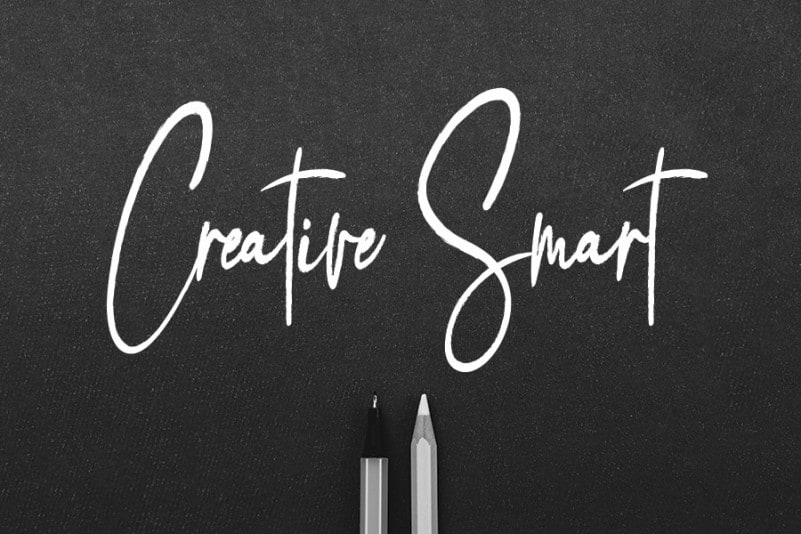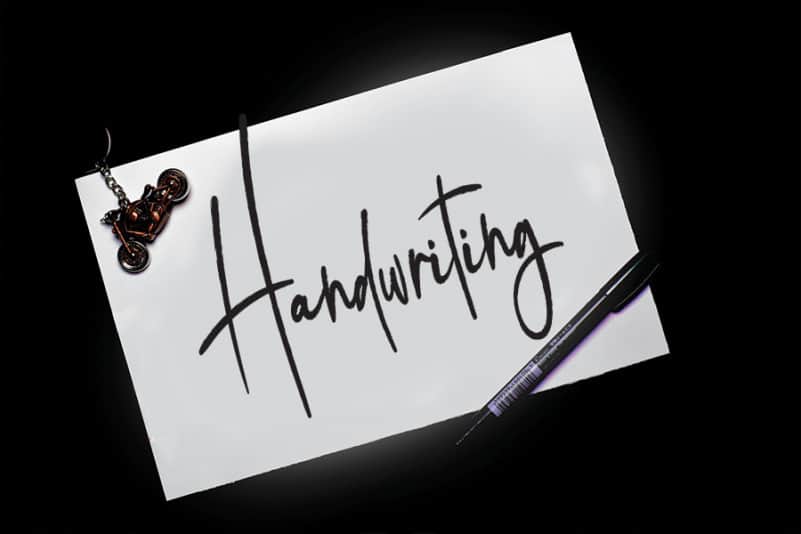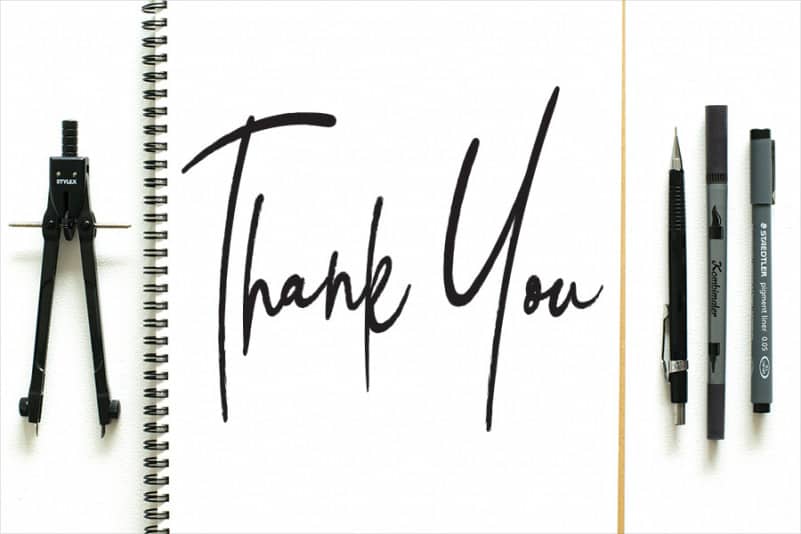
Brush Flower Handwritten Font
Brush Flower Font is a romantic and luxurious handwritten font. Incredibly versatile, this font fits a wide pool of designs, elevating them to the highest levels. Add this font to your favorite creative ideas and notice how it makes them come alive!